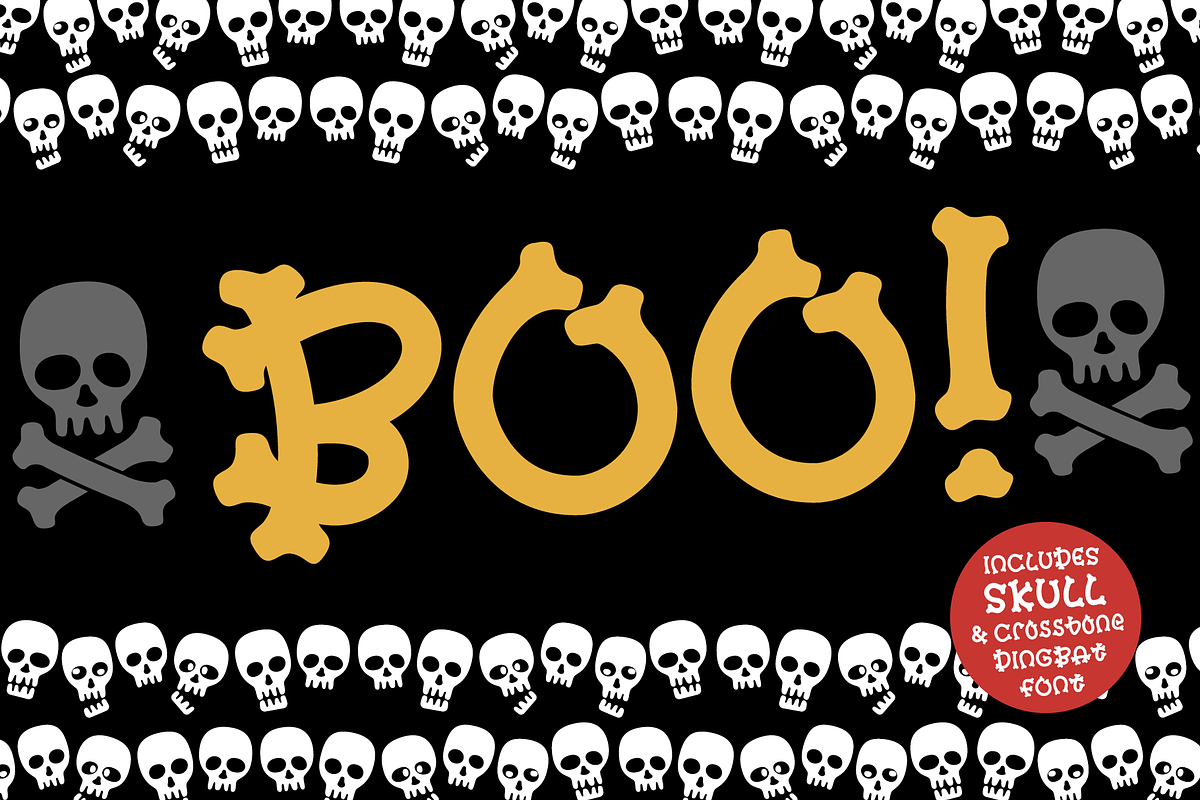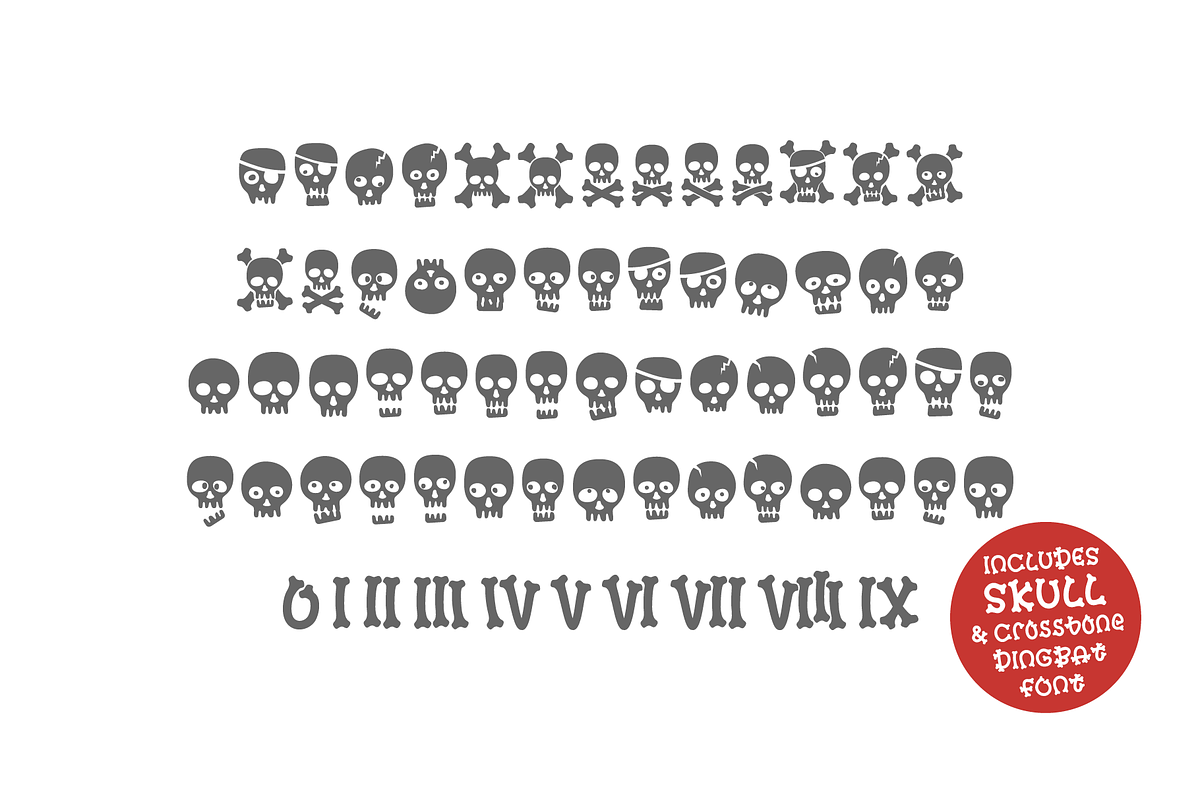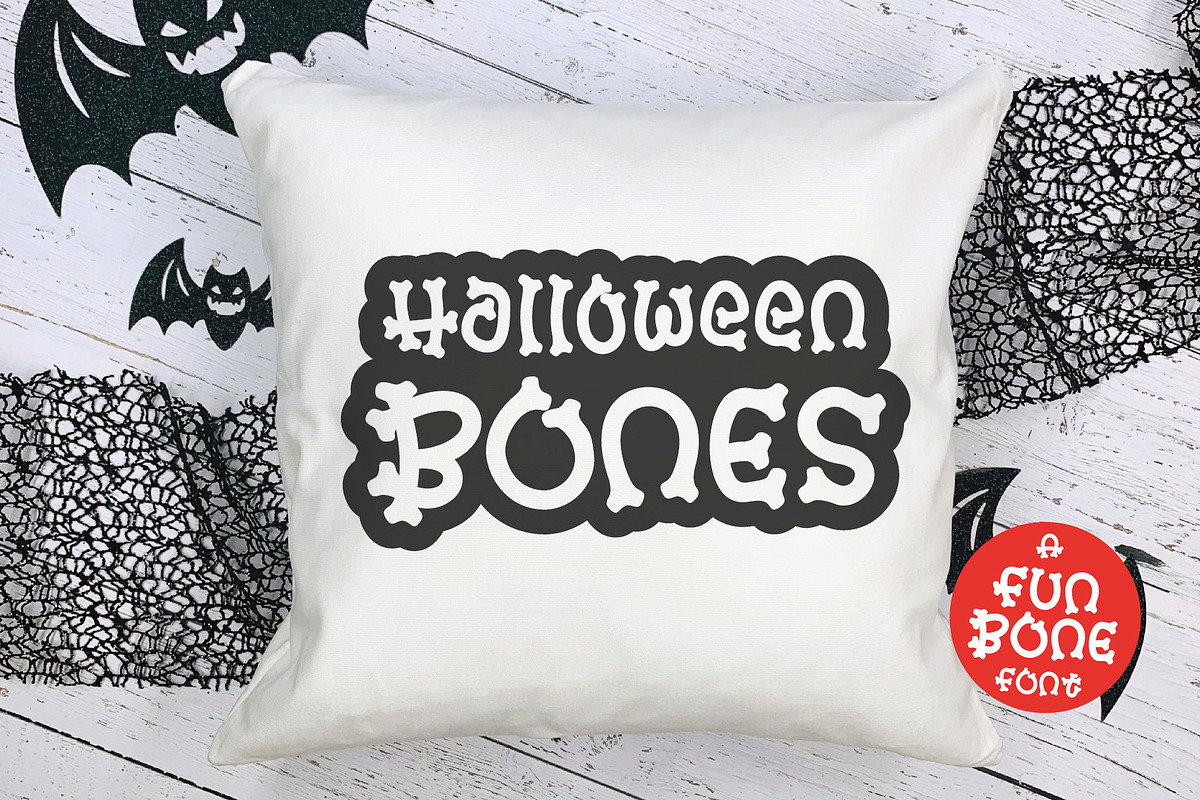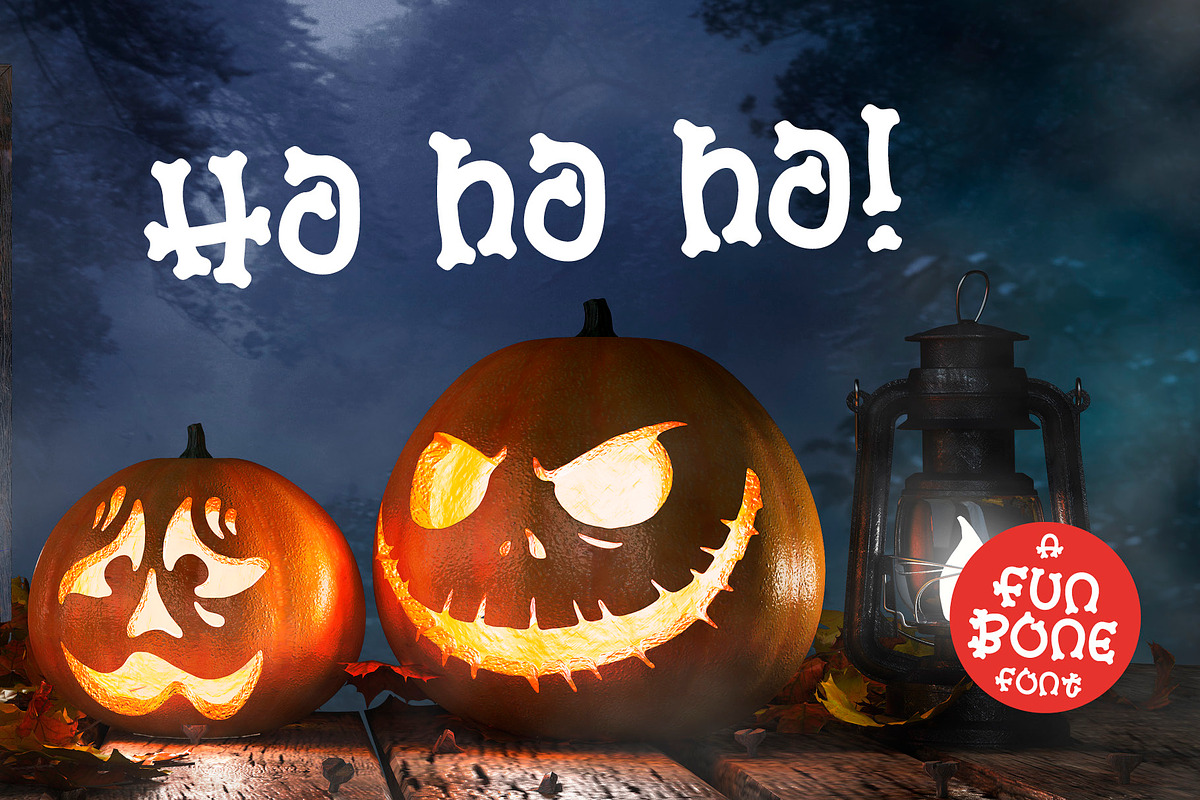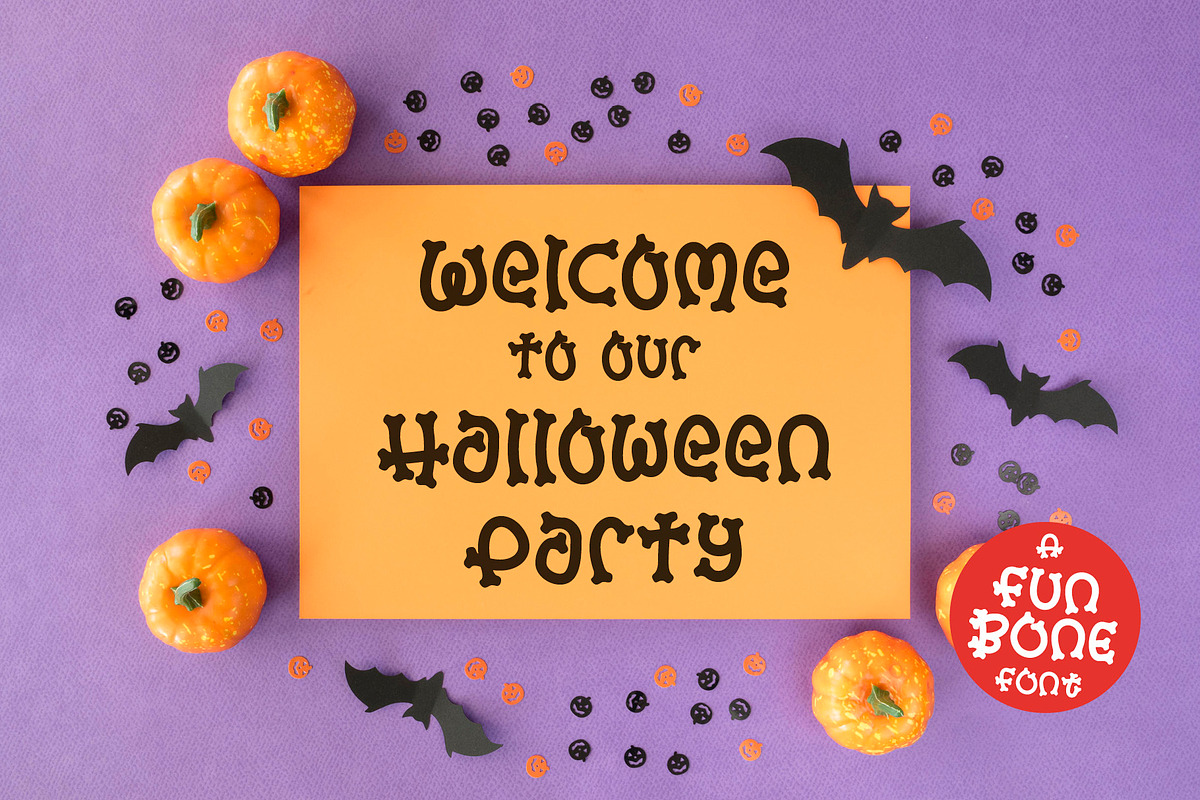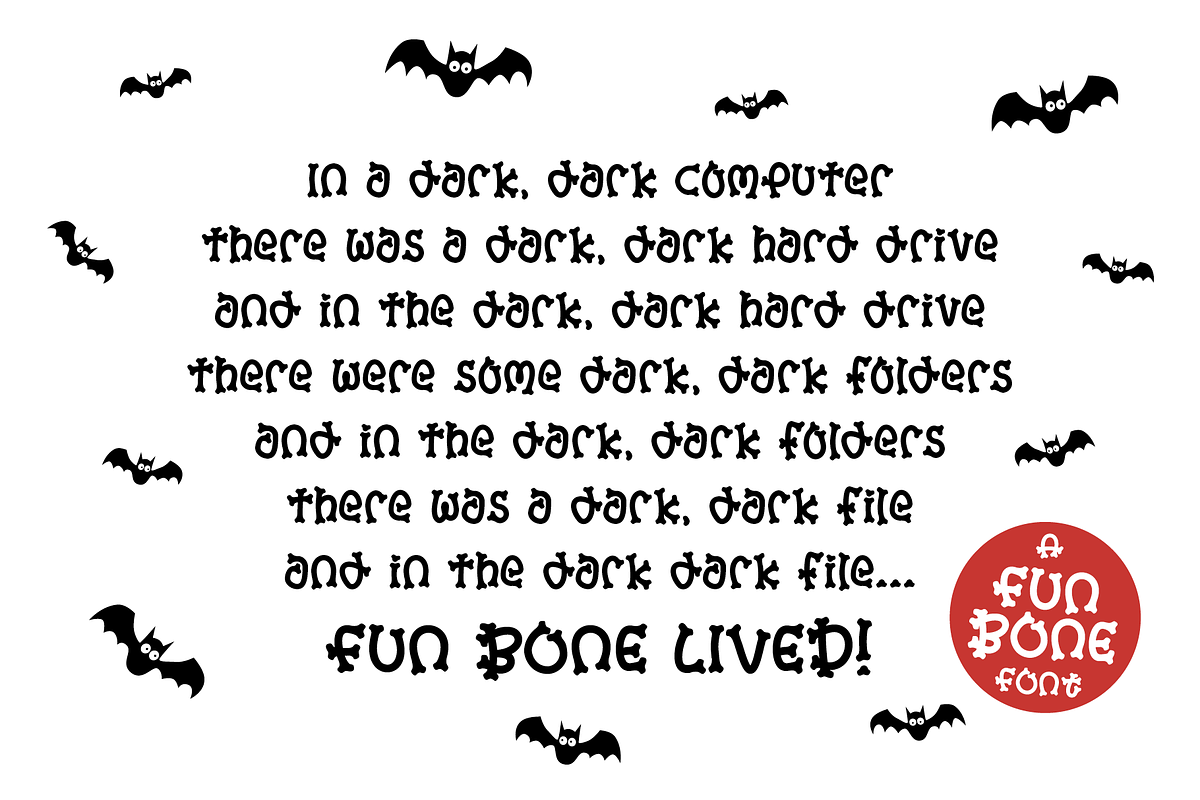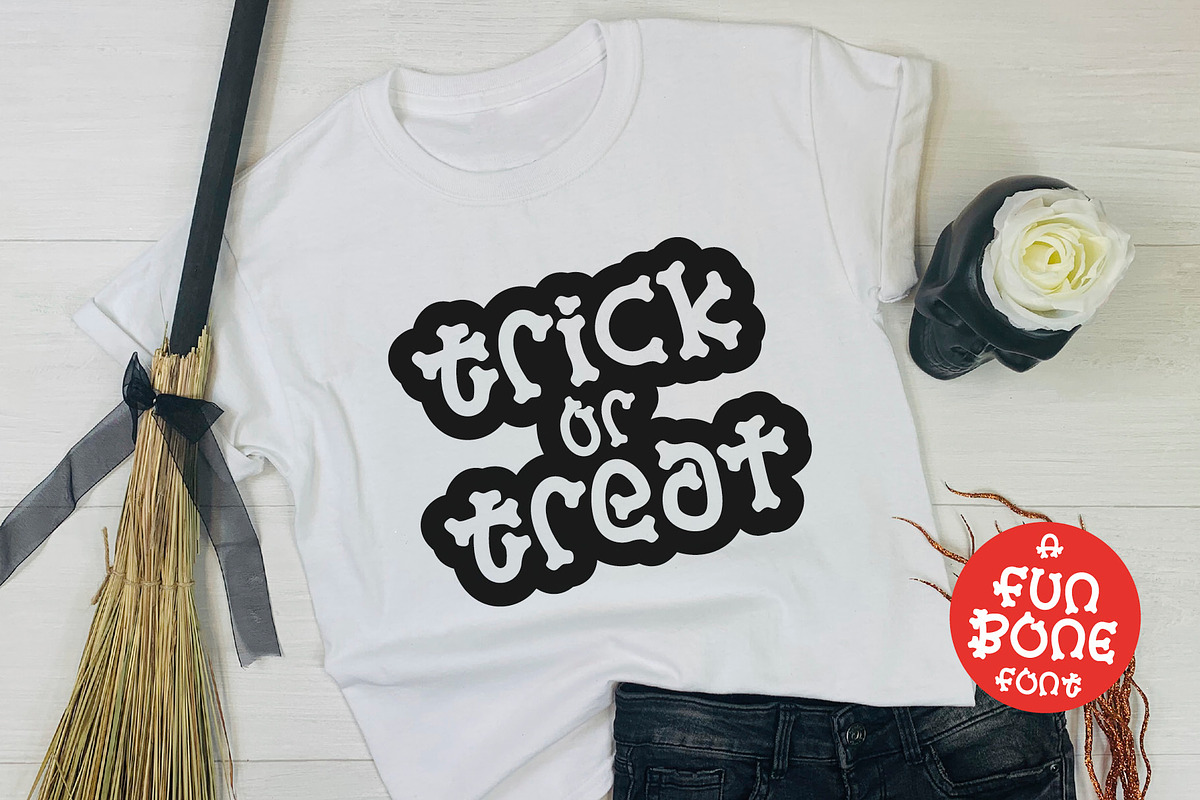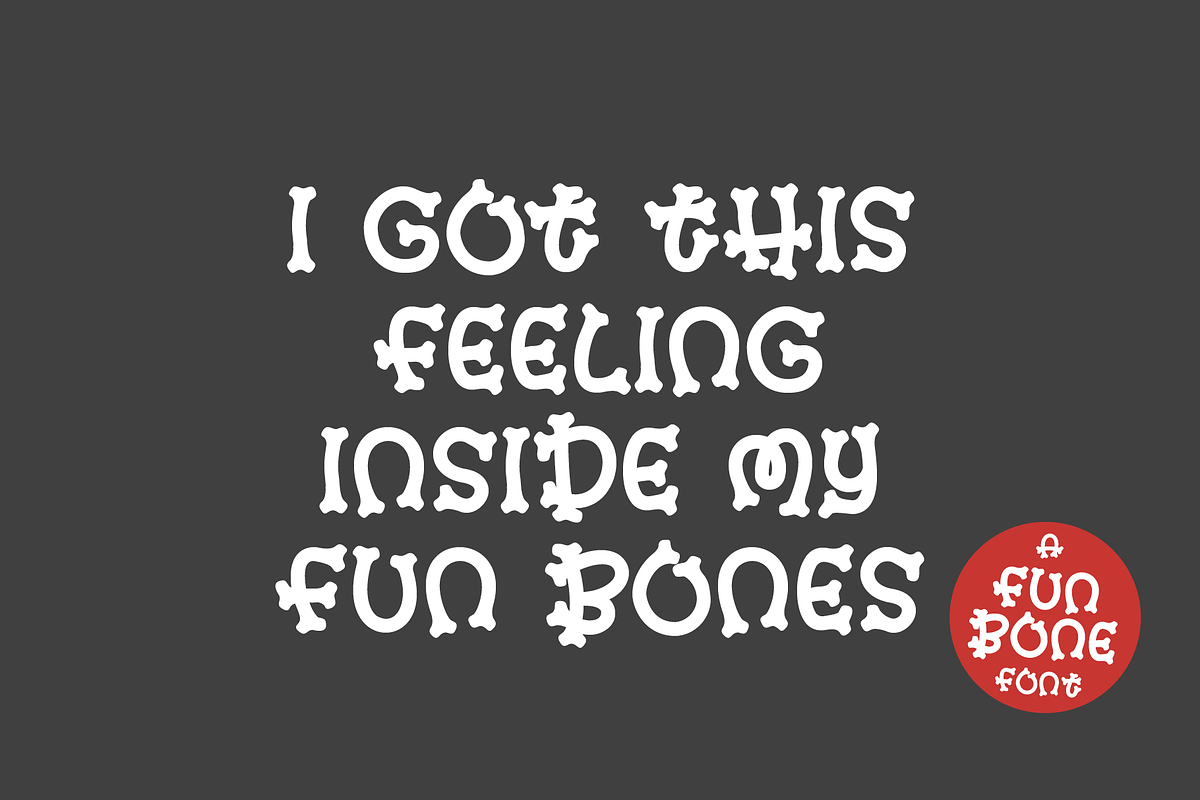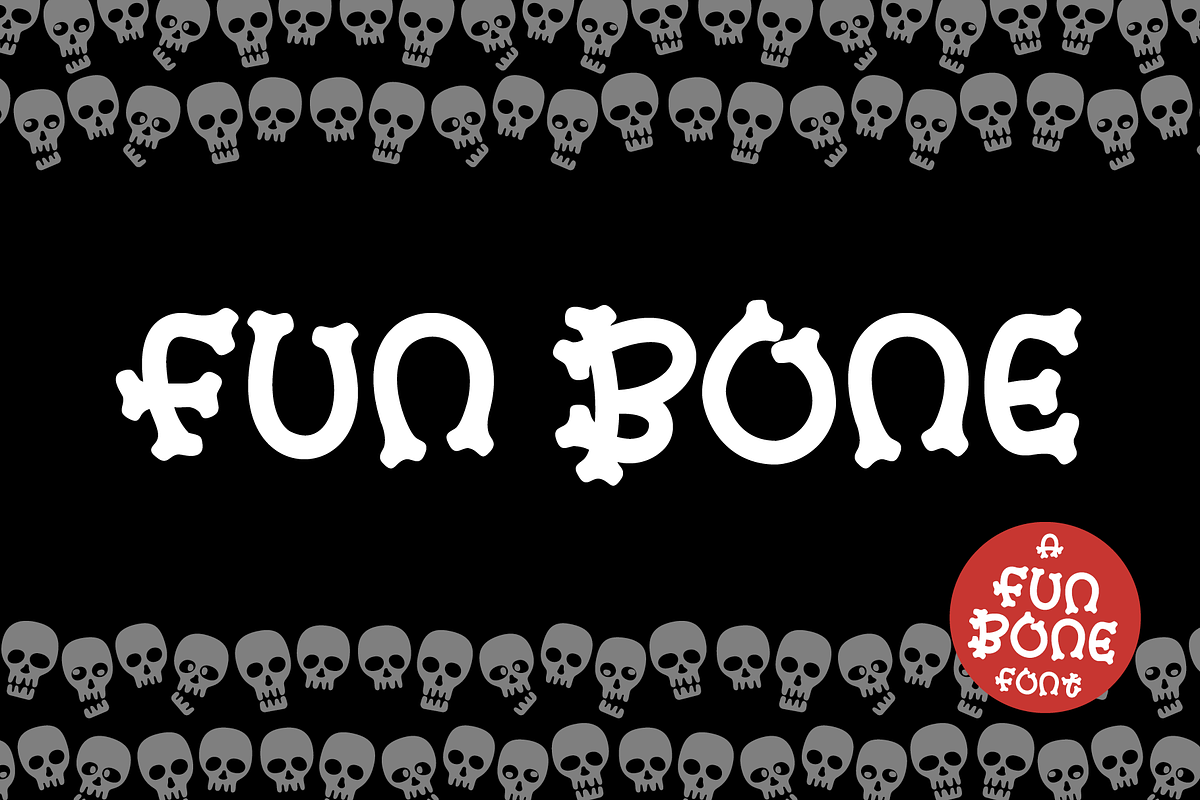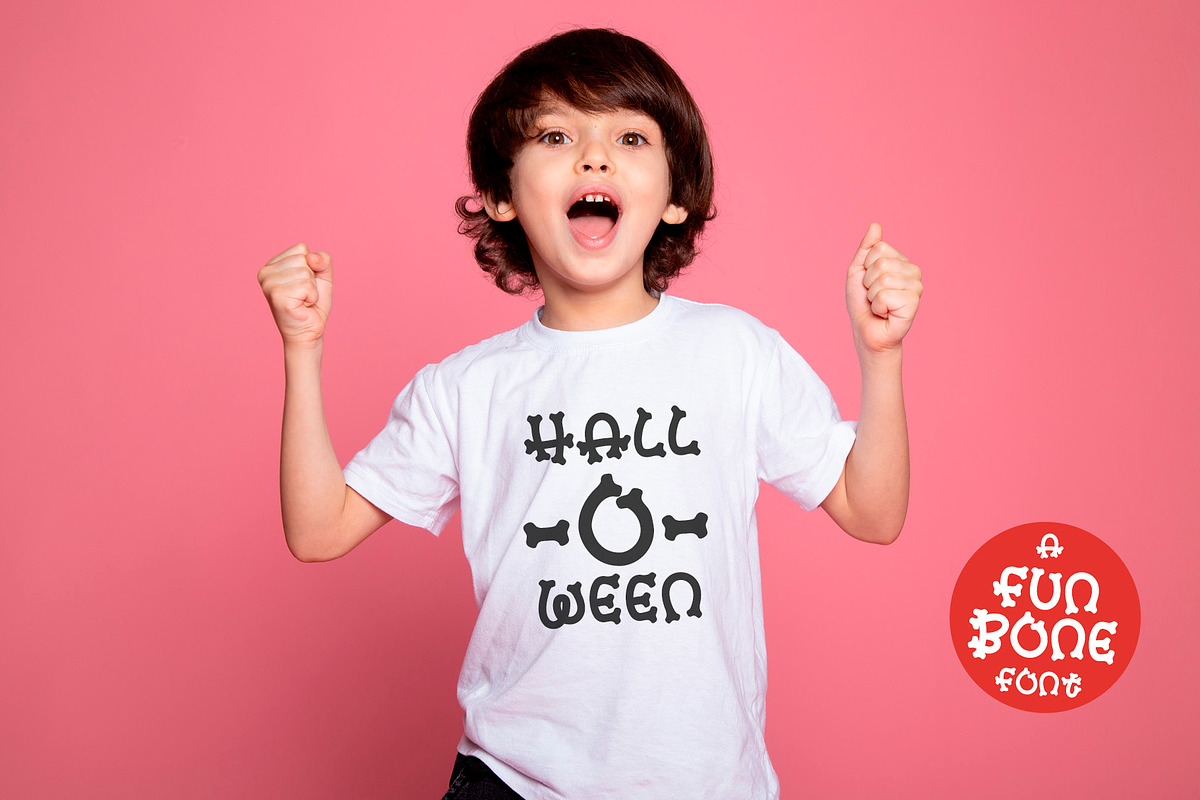
FUN BONE FONT | a Halloween Font
FUN BONE FONT | a Halloween Font & Skull Font includes FREE Skull & Crossbones Dingbat Font
A Fun Bone Font, created to be used as a Halloween font, BUT, this would also work great as a Dog Bone Font, a Pirate Font, a Skeleton Font or anything else related to bones! There is also a Skull & Crossbones Dingbat Font called Fun Bone Skulls, including lots of skull icons and skull and crossbones. Fun and, perhaps, a tiny bit scary?
Use as a Halloween Font, a Bone Font, a Skull Font, a Pirate Font, a Skeleton Font, a Dog Bone Font, a Skull Symbol Font, a Pirate Bones Font, a Skeleton Bones Font... there are lots of possibilities!
This fun bone font can look great on t-shirts, mugs, hats, tumblers... whatever your project requires! You can even use this Halloween font in Word!
Multilingual Font Full uppercase, lowercase and special characters. Includes the full European character set including western, central and south eastern glyphs.
FUN BONE SKULL FONT FREE Bonus Skull and Crossbones Dingbats Font A Skull filled Halloween dingbat font, 'Fun Bone Skulls', is included. This font contains a range of various skulls and skull & crossbones cartoon style icons or illustrations. As seen in preview images containing the comic style skulls.